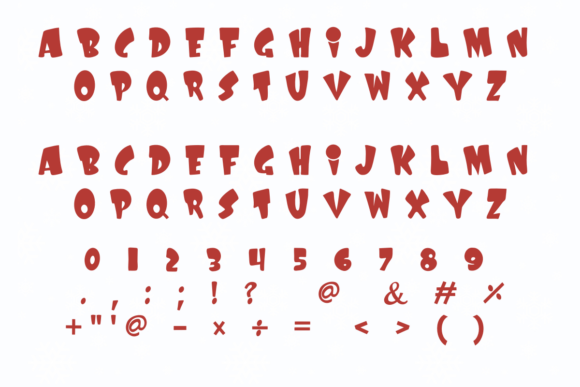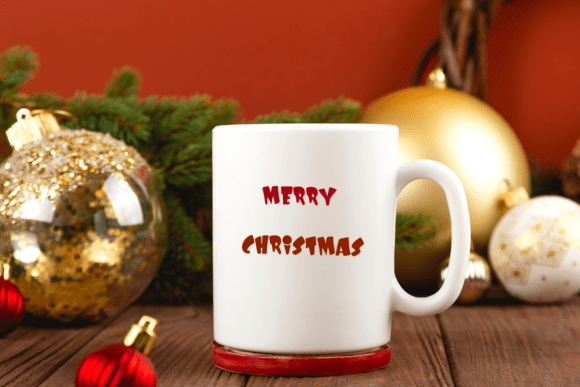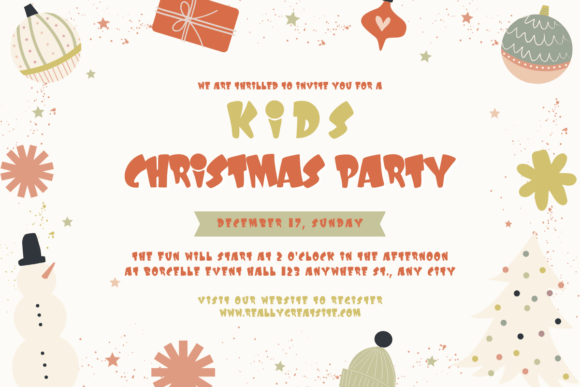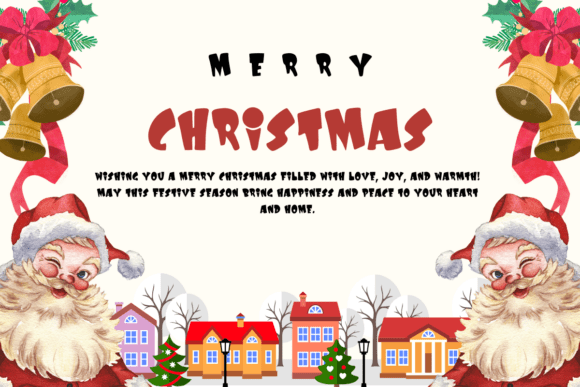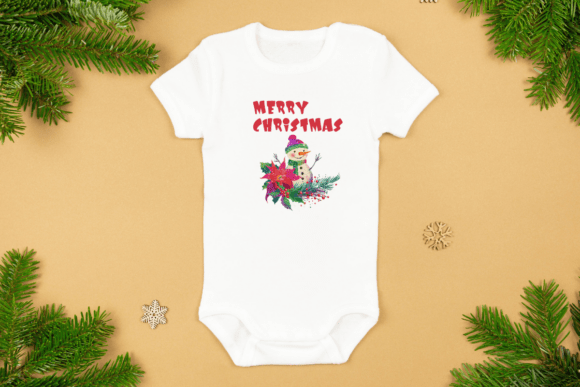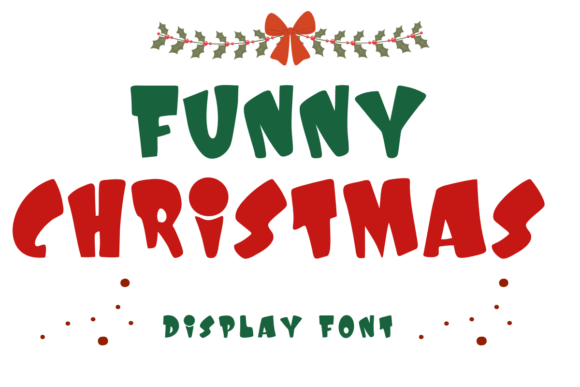
Deck the Halls with a Funny Christmas Font: Adding Whimsy to Your Holiday Designs
The holiday season is upon us, and with it comes the joy of creating festive and fun designs. One of the most effective ways to add a dash of humor and playfulness to your holiday projects is by using a funny Christmas font. In this article, we’ll dive into the world of funny Christmas fonts, exploring their uses, benefits, and how you can incorporate them into your designs.
What is a Funny Christmas Font?
A funny Christmas font is a type of decorative font designed to capture the lighthearted and humorous spirit of the holiday season. These fonts often feature playful and quirky characters, such as jolly letters, festive symbols, and whimsical illustrations. They’re perfect for adding a touch of humor and personality to your holiday designs.
Uses of a Funny Christmas Font
A funny Christmas font is a versatile design element that can be used in a variety of projects. Here are some ideas to get you started:
- Holiday Greeting Cards: Create personalized and humorous greeting cards for friends and family.
- Social Media Posts: Add a dash of humor to your holiday social media posts and make them stand out.
- Mugs and Water Bottles: Design fun and playful mugs and water bottles perfect for hot chocolate and holiday cheer.
- T-Shirts and Apparel: Create humorous holiday apparel that’s sure to bring a smile to everyone’s face.
- Stationery and Gift Tags: Add a touch of whimsy to your holiday stationery and gift tags.
- Banners and Signs: Create eye-catching and humorous banners and signs for your holiday parties and events.
Benefits of Using a Funny Christmas Font
Using a funny Christmas font in your designs offers several benefits:
- Adds Personality: A funny Christmas font adds a touch of personality and humor to your designs.
- Creates a Festive Atmosphere: A playful font helps create a festive and celebratory atmosphere in your designs.
- Engages Your Audience: A humorous font can help engage your audience and make your designs more memorable.
- Versatile: A funny Christmas font can be used in a variety of projects and designs.
Tips for Using a Funny Christmas Font
Here are some tips for using a funny Christmas font in your designs:
- Choose a Font that Fits Your Brand: Select a font that aligns with your brand’s personality and tone.
- Use it Sparingly: Use the font sparingly to avoid overwhelming your design.
- Experiment with Colors and Textures: Experiment with different colors and textures to add depth and interest to your design.
- Pair it with Other Fonts: Pair the funny Christmas font with other fonts to create a unique and visually appealing design.
Funny Christmas Font: A Decorative Font for All Your Needs
Funny Christmas is a decorative font that’s perfect for all your holiday design needs. You can use it for:
- Taking Notes: Add a touch of humor to your notes and to-do lists.
- Writing a Diary: Make your diary entries more fun and engaging.
- Making Greeting Cards: Create personalized and humorous greeting cards for friends and family.
- Banners and Content: Use the font to create eye-catching banners and content for your website or social media.
- Mugs and Cards: Design fun and playful mugs and cards perfect for hot chocolate and holiday cheer.
- Shirts and Stationery: Create humorous holiday apparel and stationery that’s sure to bring a smile to everyone’s face.
- Social Media Posts: Add a dash of humor to your holiday social media posts and make them stand out.
In conclusion, a funny Christmas font is a versatile design element that can add a touch of humor and personality to your holiday designs. With its playful and quirky characters, it’s perfect for creating festive and fun designs that engage and delight your audience. So why not give Funny Christmas font a try and deck the halls with laughter and joy?